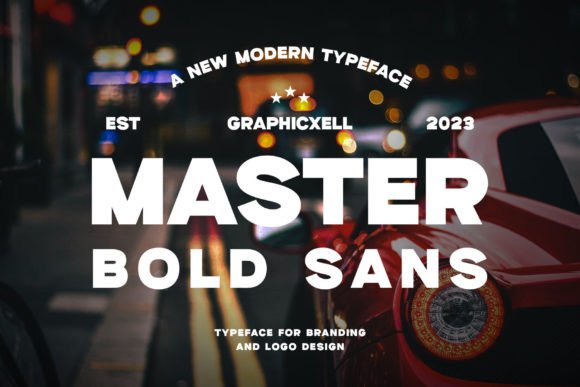
Journey into the world of typography with Master Bold Font – a sans serif typeface that exudes confidence and modernity. Graphicxell's creative minds have crafted this font with meticulous precision, bestowing it with sharp lines and a distinctive boldness. Master Bold Font is not just a collection of characters; it's an artistic expression, a fusion of form and function that elevates your designs to new heights.
Dive into the realm of possibilities with Master Bold Font and witness the transformation of your flyers. Whether it's a captivating promotional flyer or an informative event announcement, this font commands attention and leaves a lasting impression. Its clean and minimalist style allows your message to shine, while its bold presence ensures it stands out amidst a sea of mediocrity.
Crafting flyers with Master Bold Font is an experience in itself. The font's versatility and adaptability make it a perfect partner for your creative vision. Its crisp lines and confident strokes lend themselves effortlessly to headlines, subheadings, and body text, creating a cohesive and visually appealing design. Master Bold Font breathes life into your words, turning them into captivating visual elements that resonate with your audience.
Transcend the boundaries of ordinary typography with Master Bold Font. Its modern appeal and energetic vibe infuse your designs with a sense of vitality and dynamism. Let your flyers radiate confidence and leave an imprint on the minds of your readers.
In a world saturated with visual noise, Master Bold Font emerges as a beacon of clarity and distinction. Its bold stance cuts through the clutter, demanding attention and inviting engagement. Embrace the power of Master Bold Font and watch your flyers soar to new heights of effectiveness.